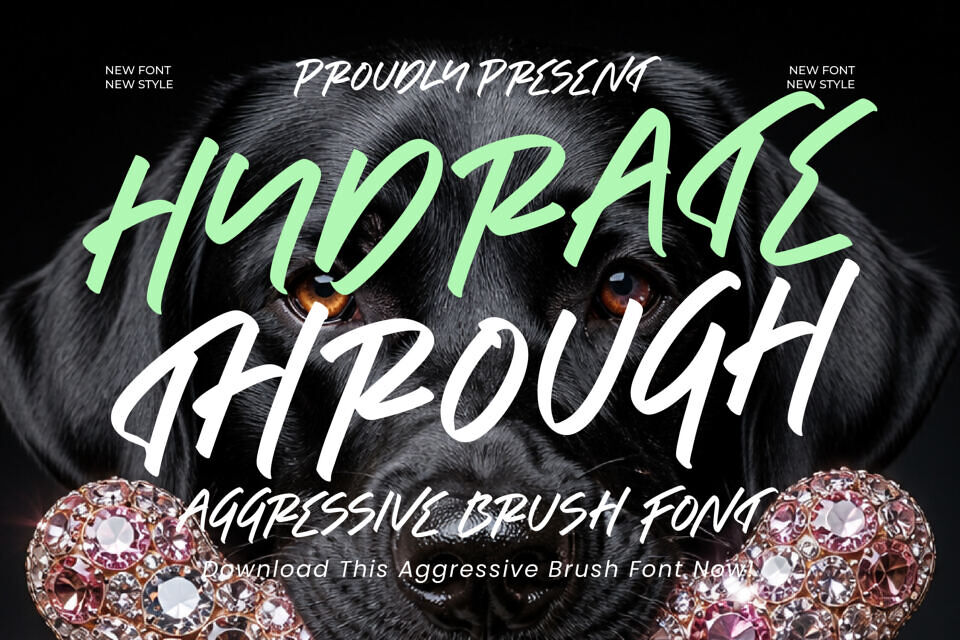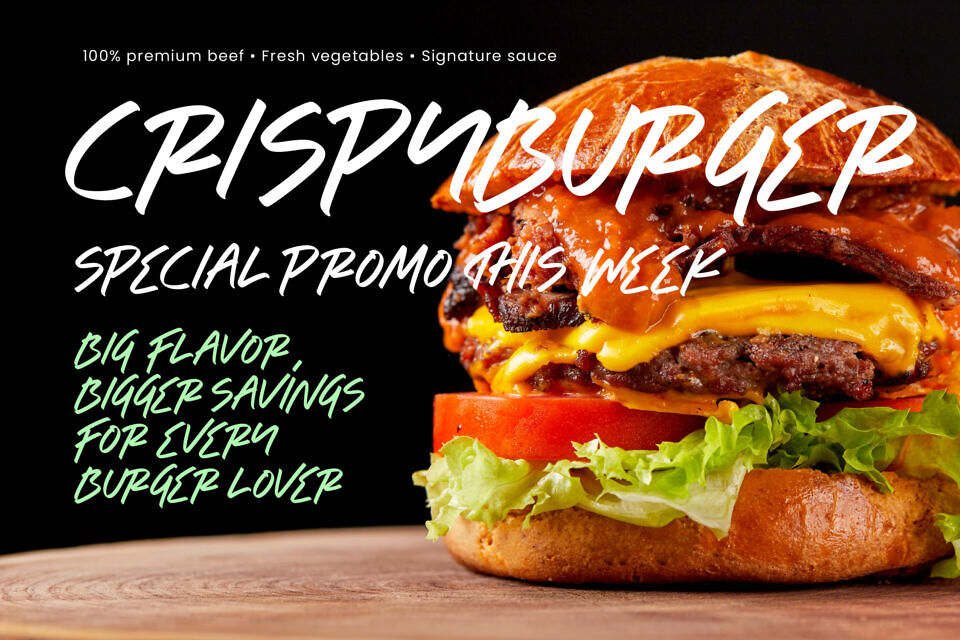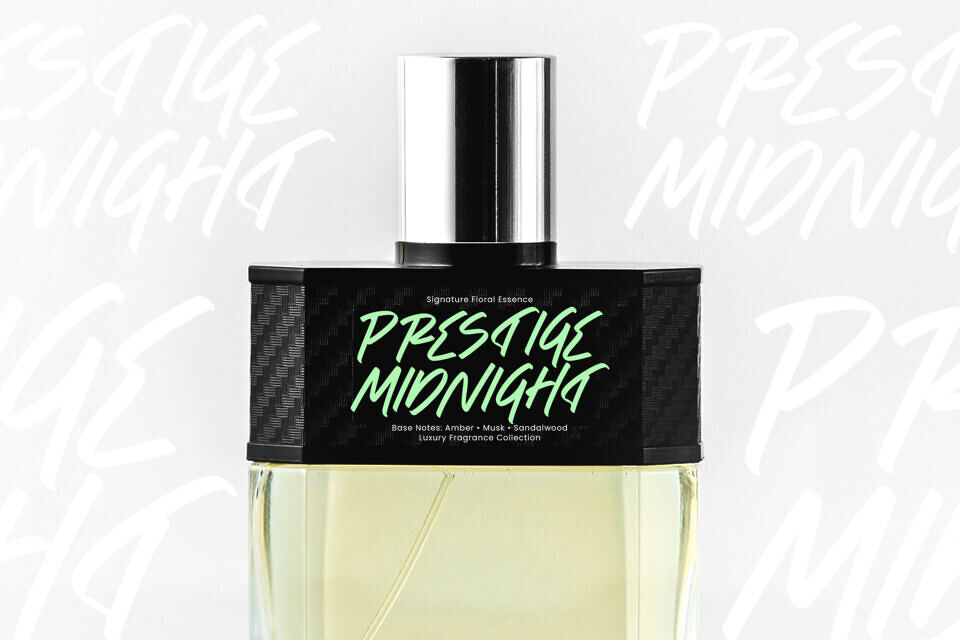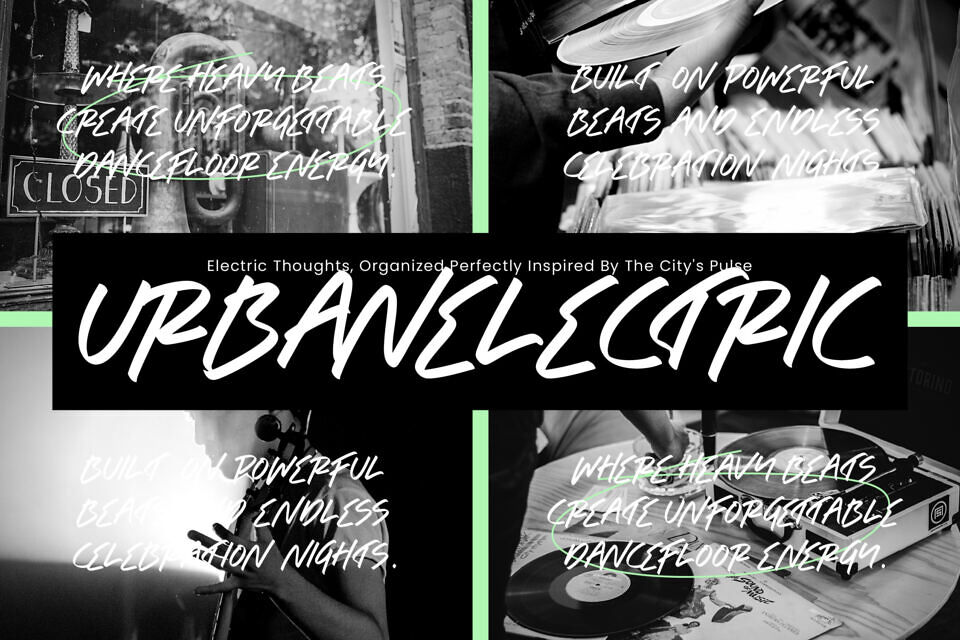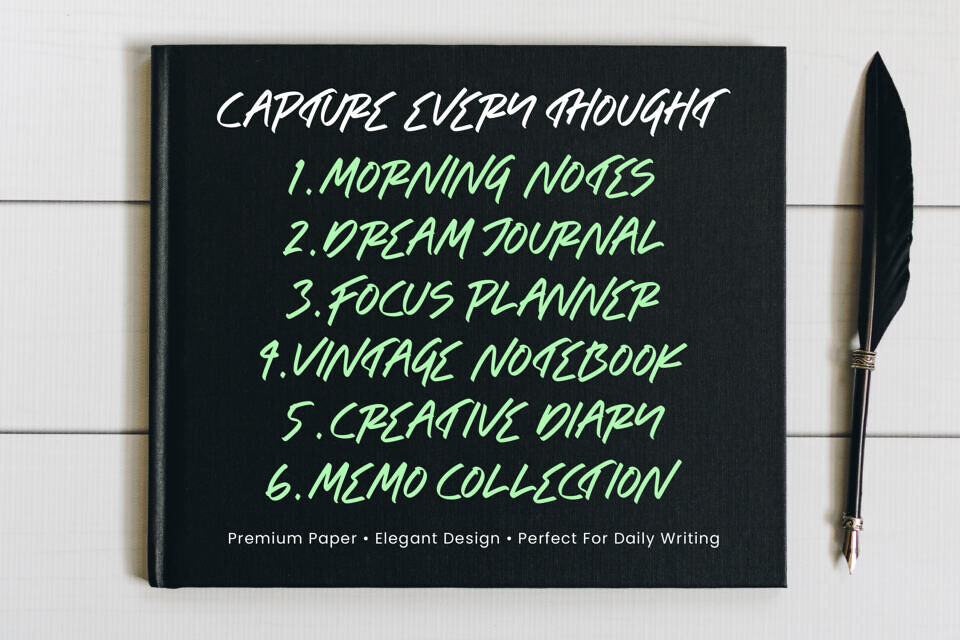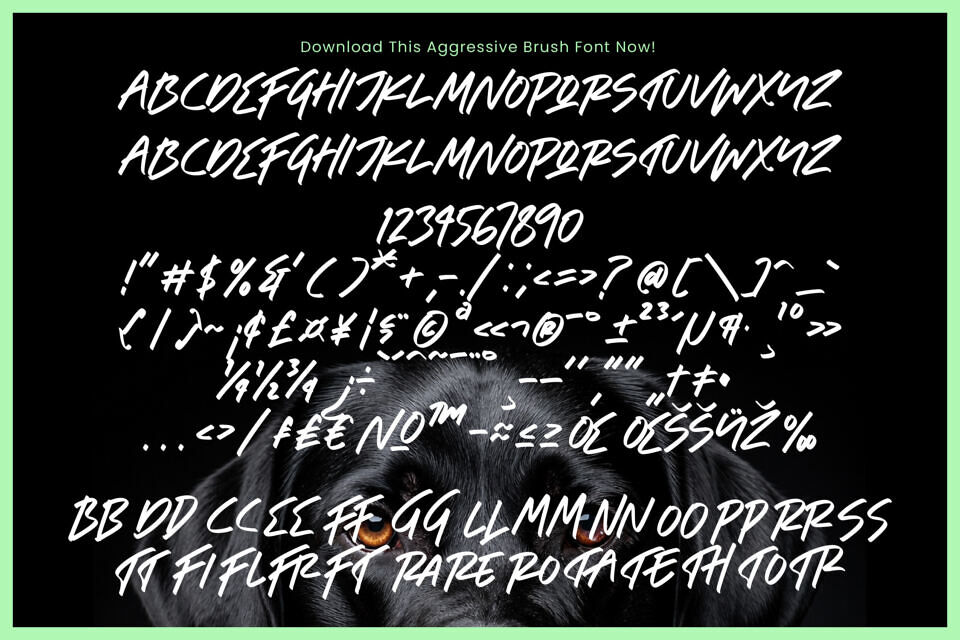
Hydrate Through is a high-energy font with bold brush strokes and dynamic movement. Its expressive letterforms command attention and exude confidence.
Inspired by hand-painted lettering and urban styles, this font combines raw texture with strong construction. The result is a bold, eye-catching presence that works well in print and digital media, with an authentic, handcrafted feel that’s still easy to read. It’s perfect for adding attitude and strength to branding, graphics, and social media content.